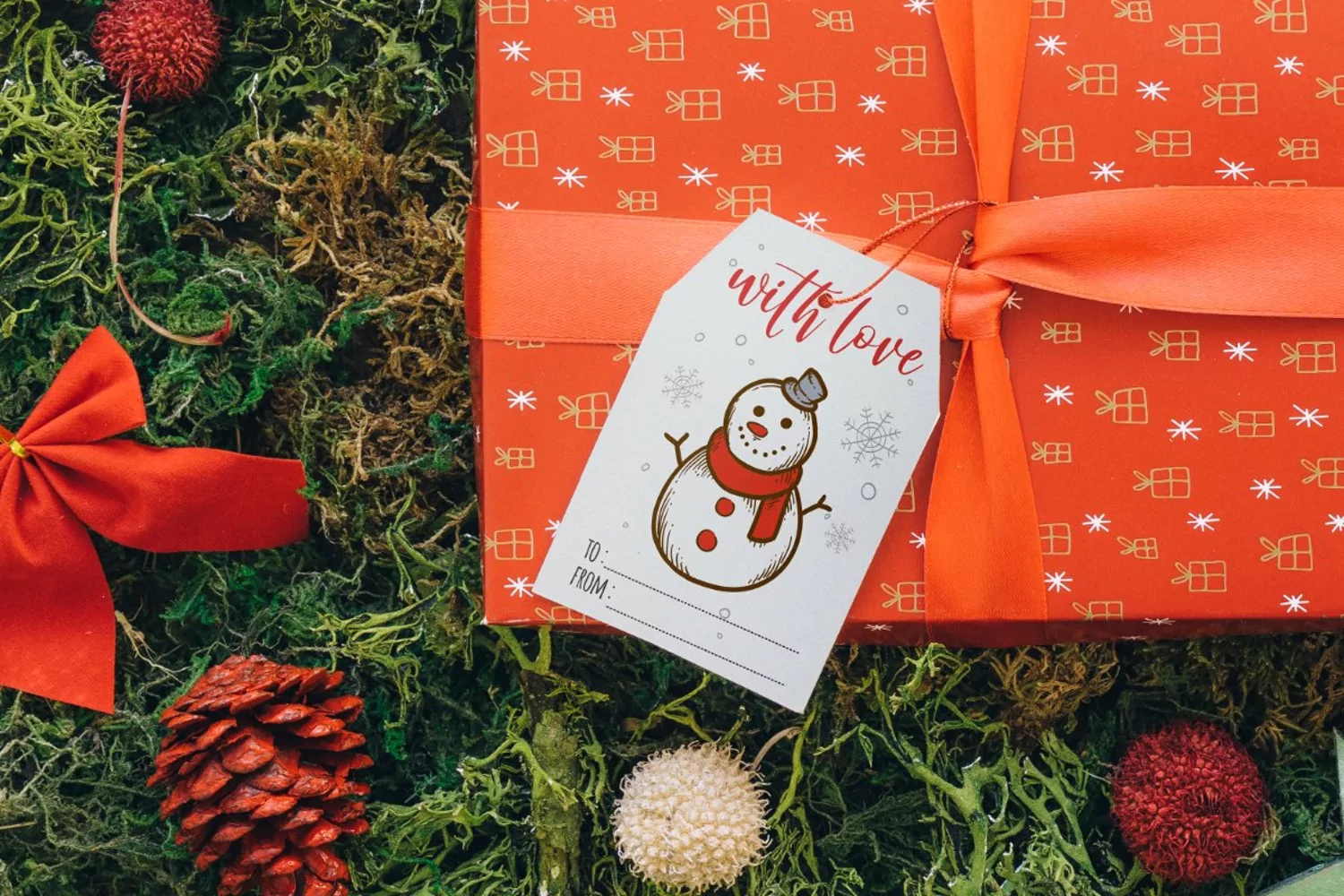
Introducing "Sparkling Christmas"
Sparkling Christmas - Modern Script Font
You Can Mix And Match for Your Awesome Project
This fonts is ideal for crafting, branding and decorate your any project. This fonts are perfect for wedding invitation or your blog. Also with their help, you can create a logo or beautiful frame for your home. Or just use for your business, book covers, stationery, marketing, magazines and more.